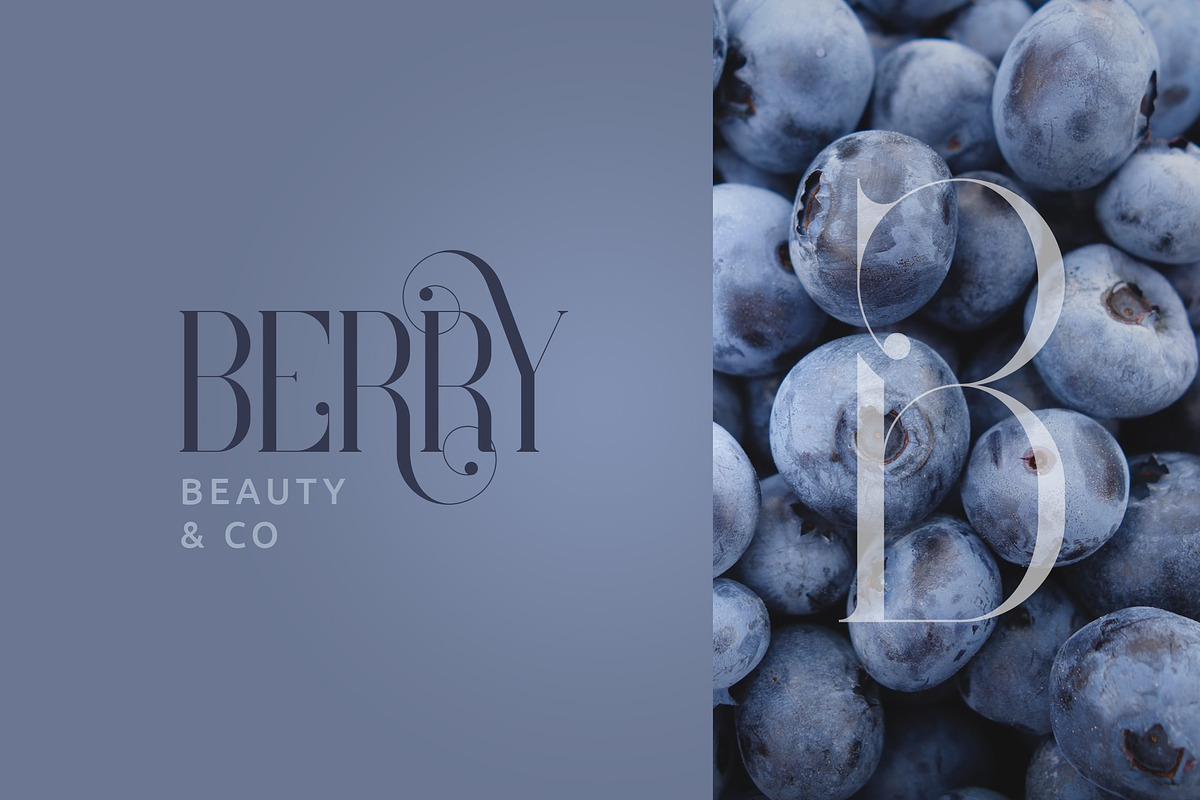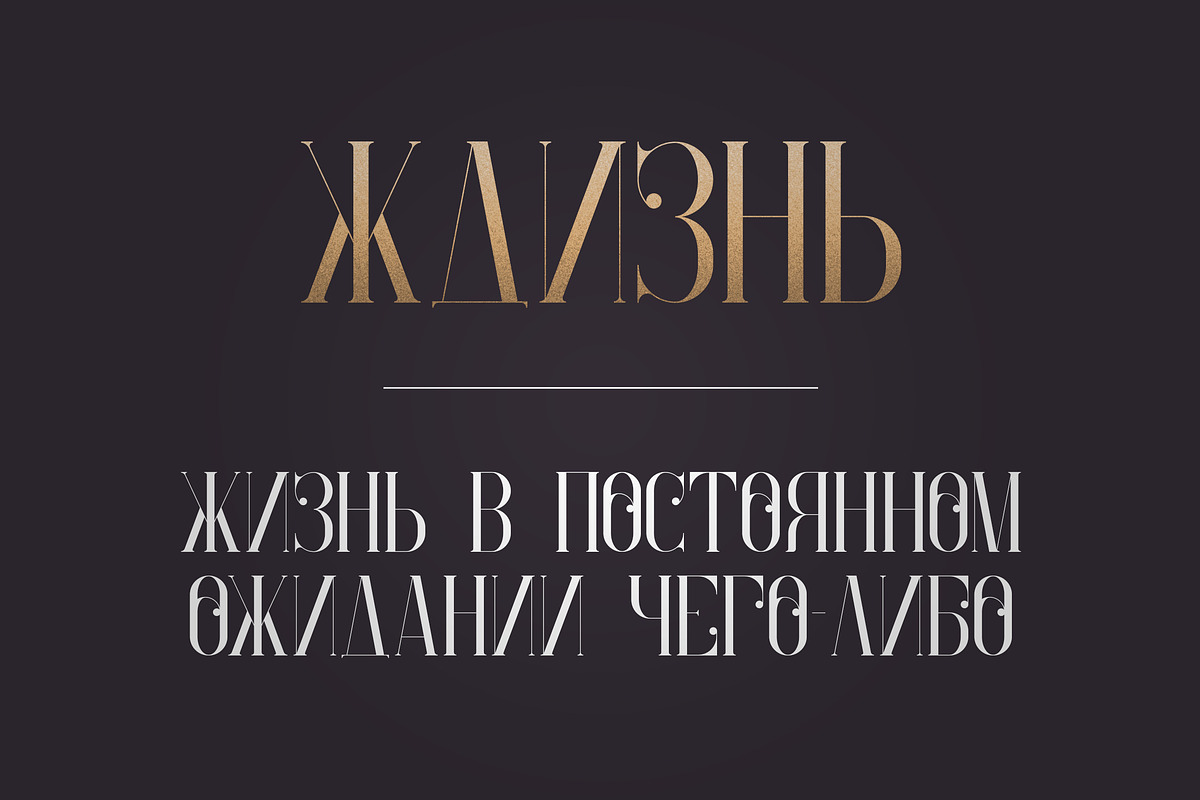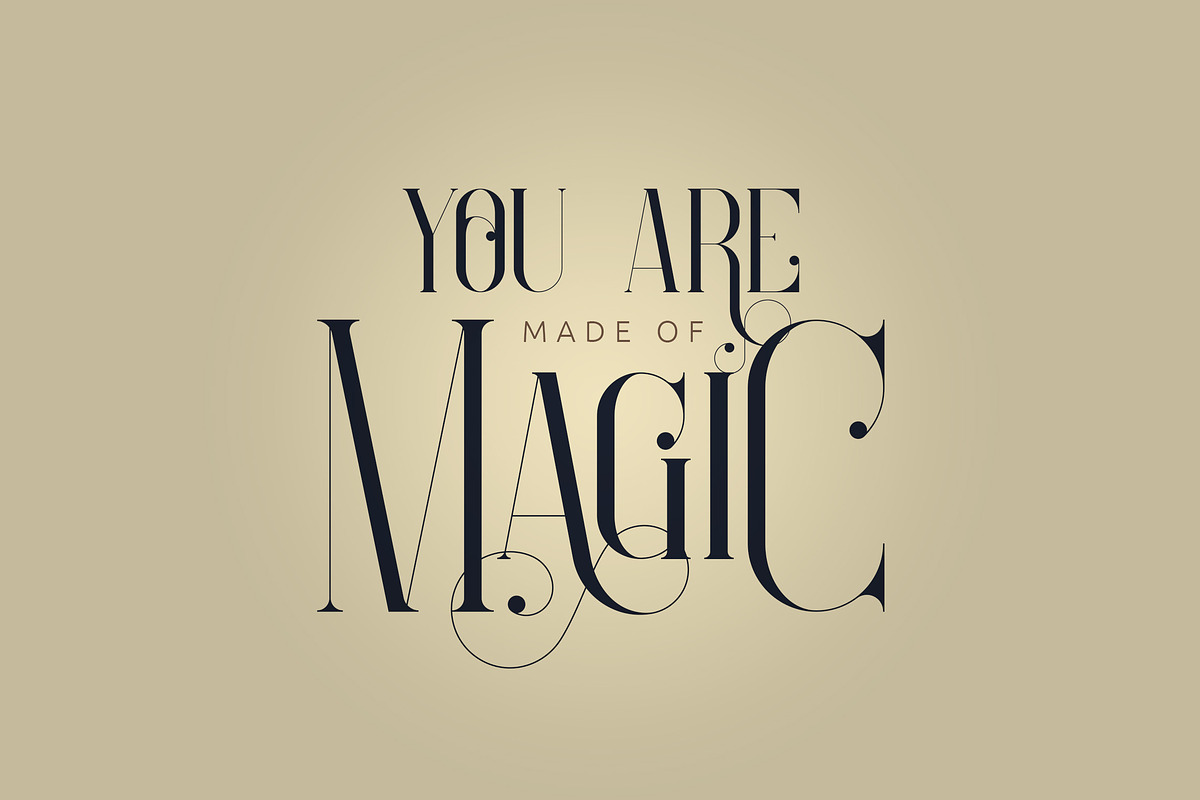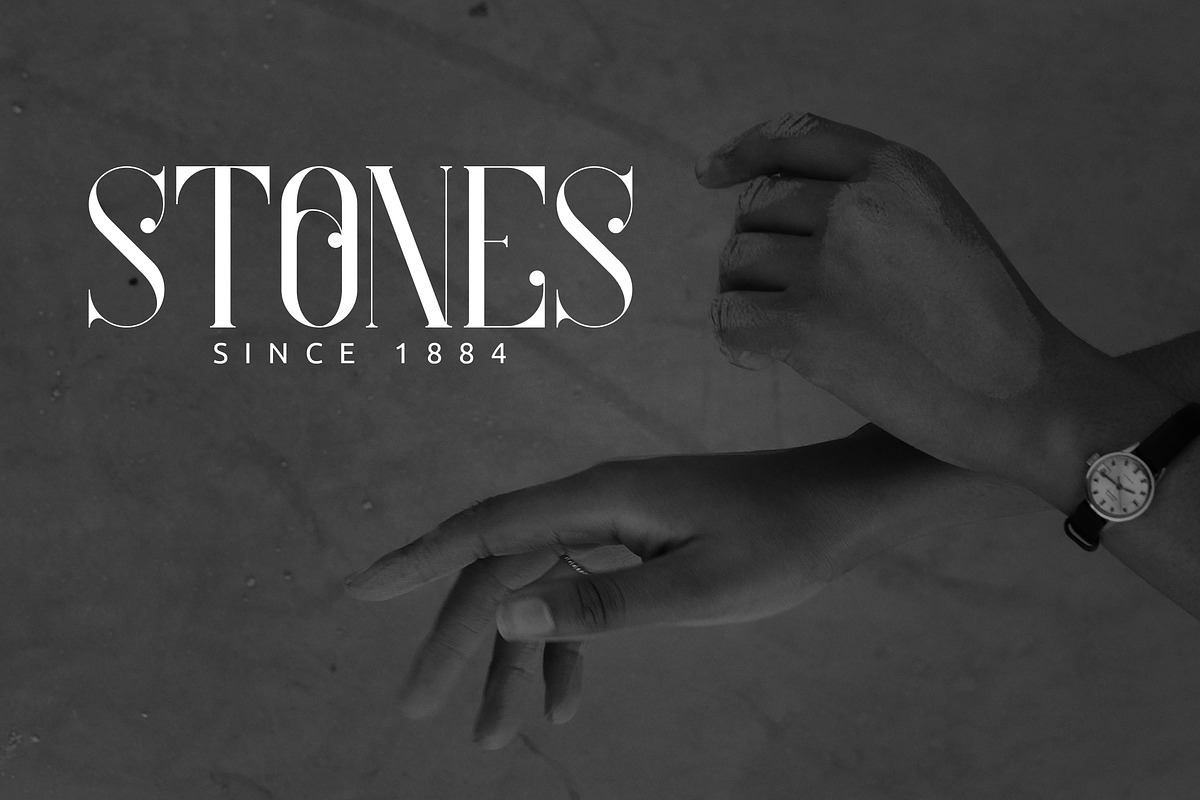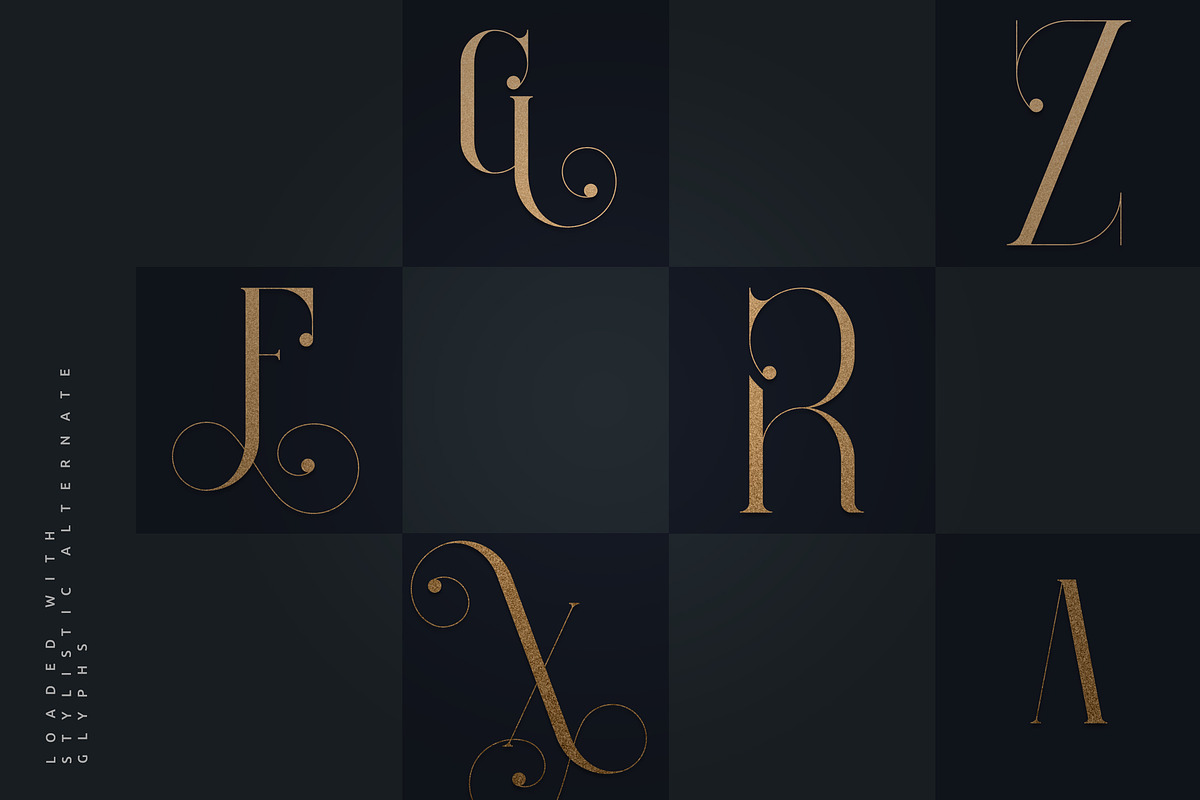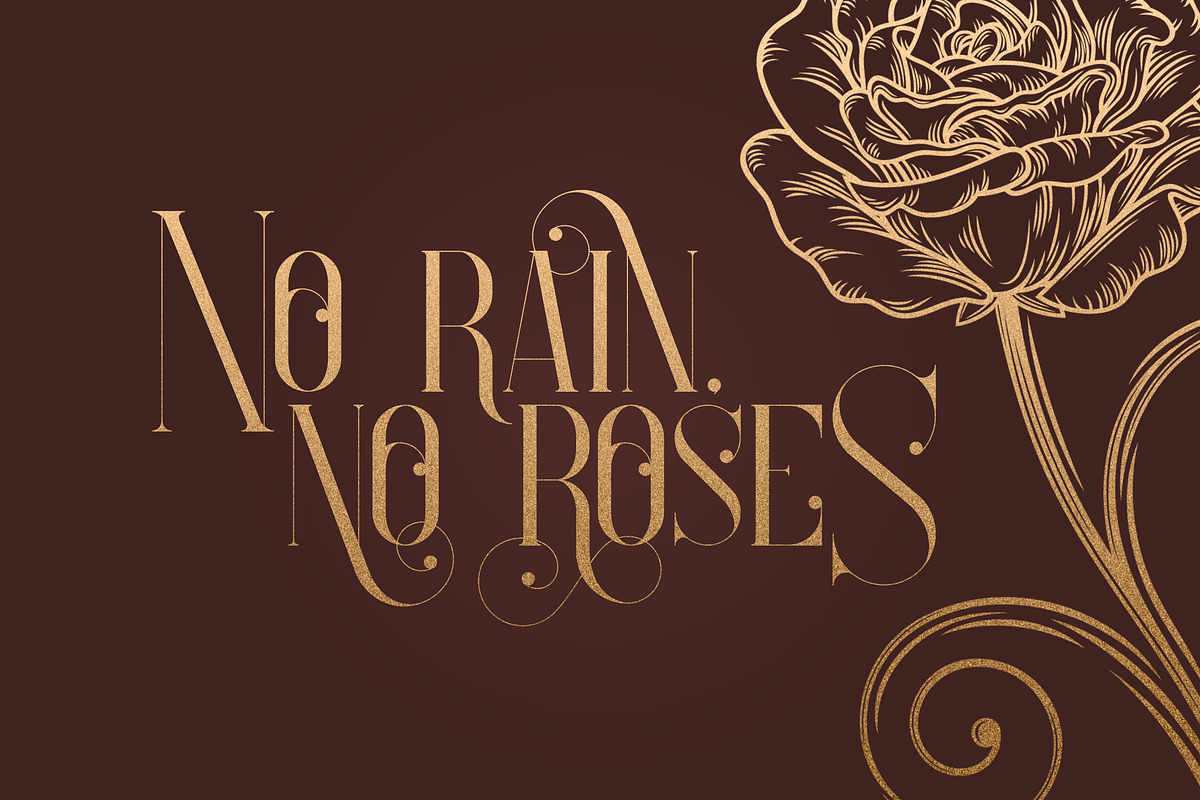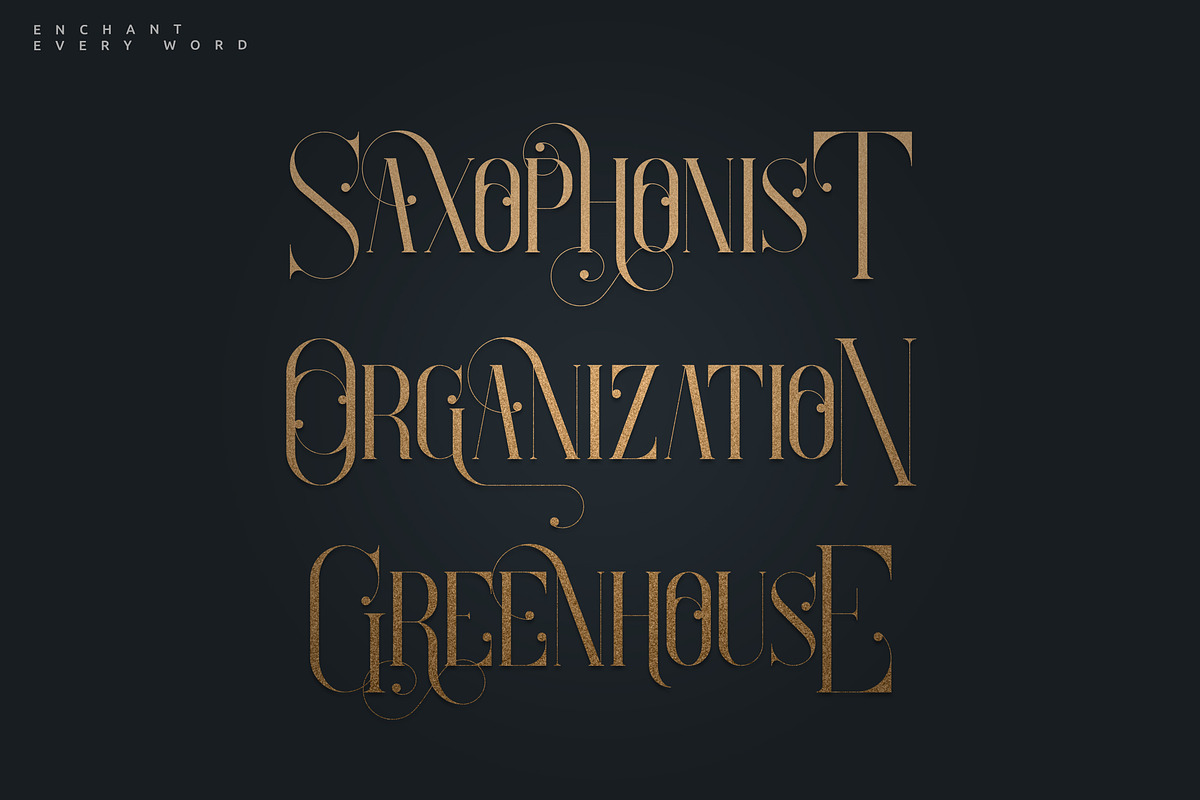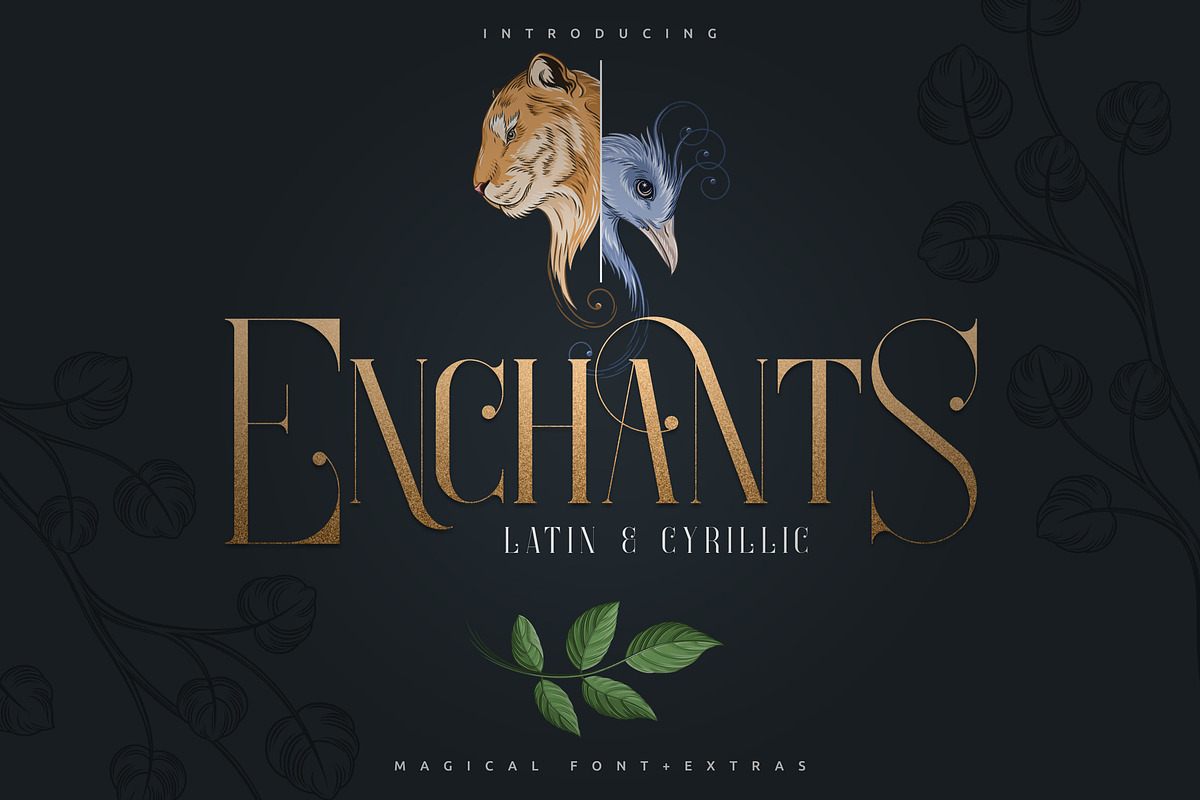
SALE! Enchants - Magical font
Enchants is vintage, clean font with latin and Cyrillic support, loaded with alternate glyphs and graphic assets. It's a very versatile font that works great in large and small sizes.
Enchants is perfect for branding projects, home-ware designs, product packaging, magazine headers - or simply as a stylish text overlay to any background image.
Uppercase, numeral,punctuation & Symbol
3 animal designs and nature elements ( black and in color )
Cyrillic support - Russian, Ukrainian, Bulgarian and more